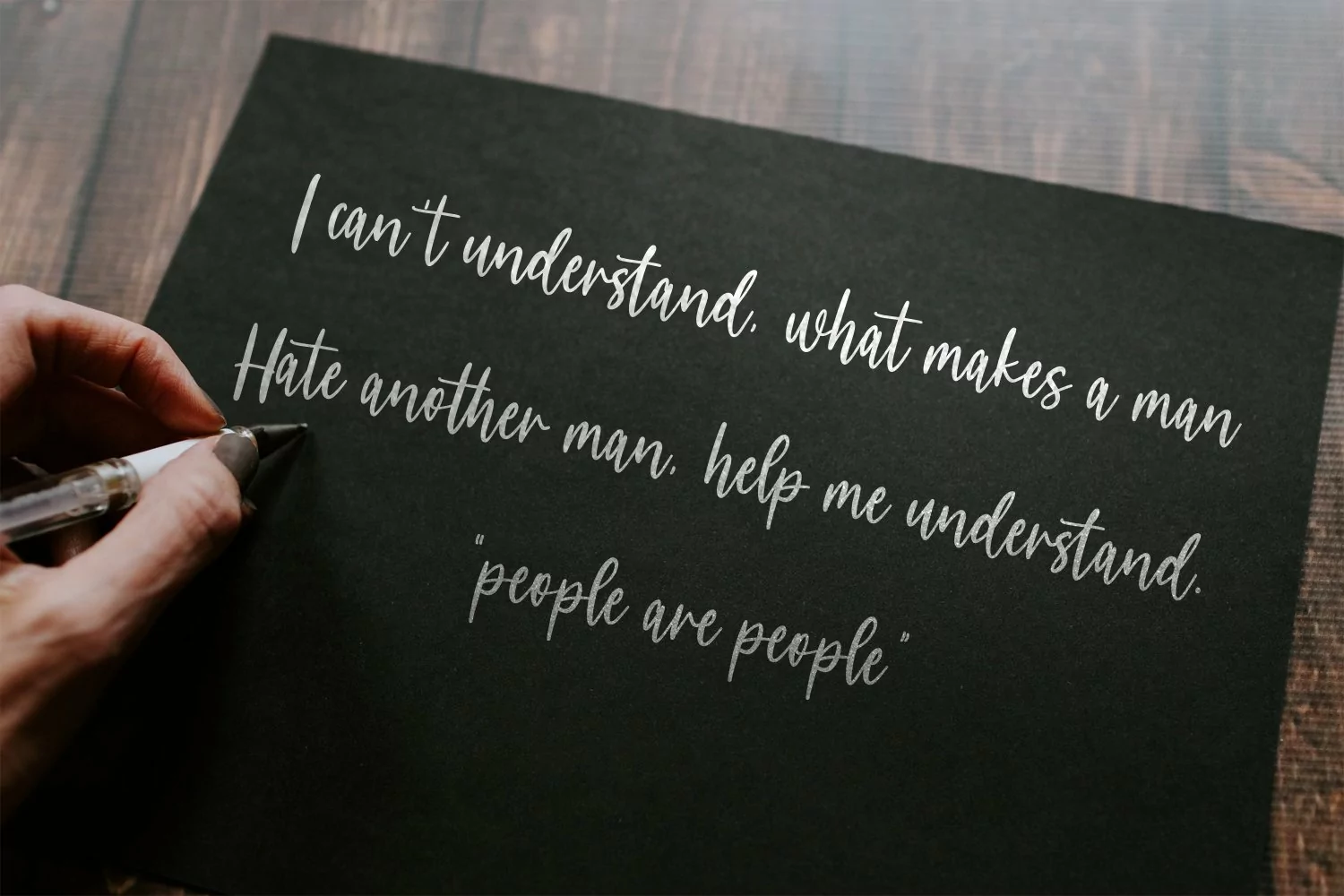
Skyeeloft Handwritten Script Font
Skyeeloft is a modern fun handwritten script font, With a high contrast stroke clean and fancy characters. It has Opentype features of ligatures, makes it a perfect choice for branding and digital designs. Use this font for logos, social media, websites, blogs, instagram, social media, business cards, branding, and more! Skyeeloft font support multilingual more than 100+ language. and good pair for your secondary text font with sans or serif. Make a stunning work with Skyeeloft handwritten script font.